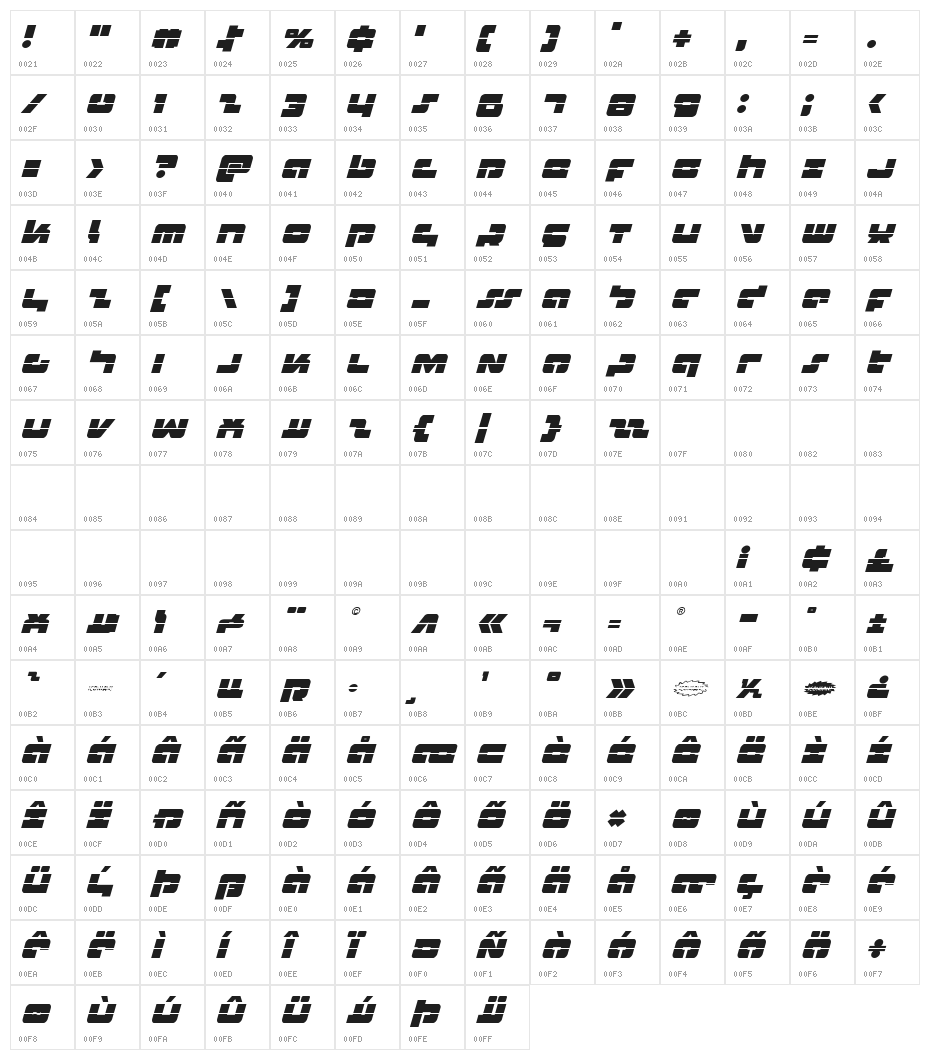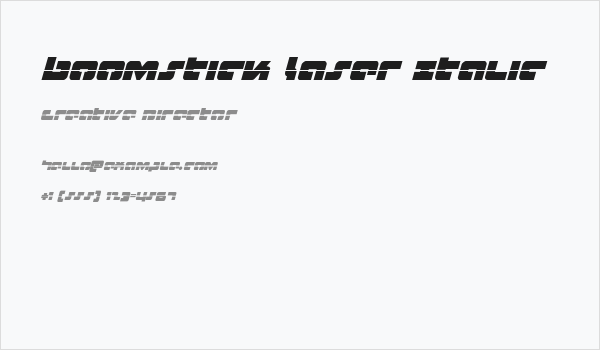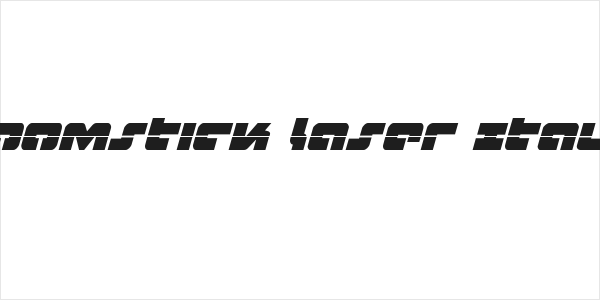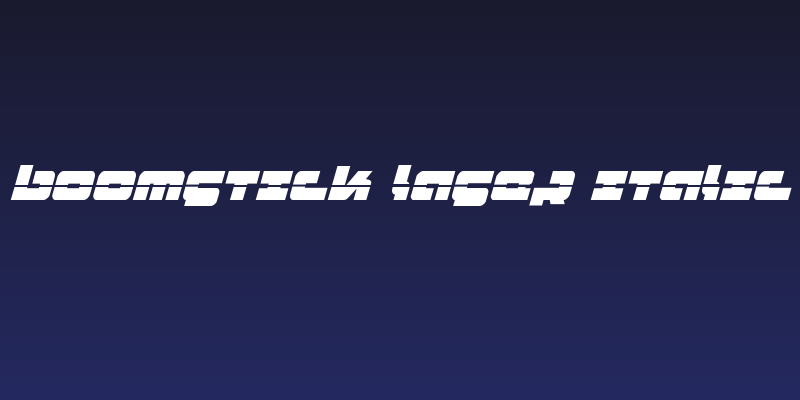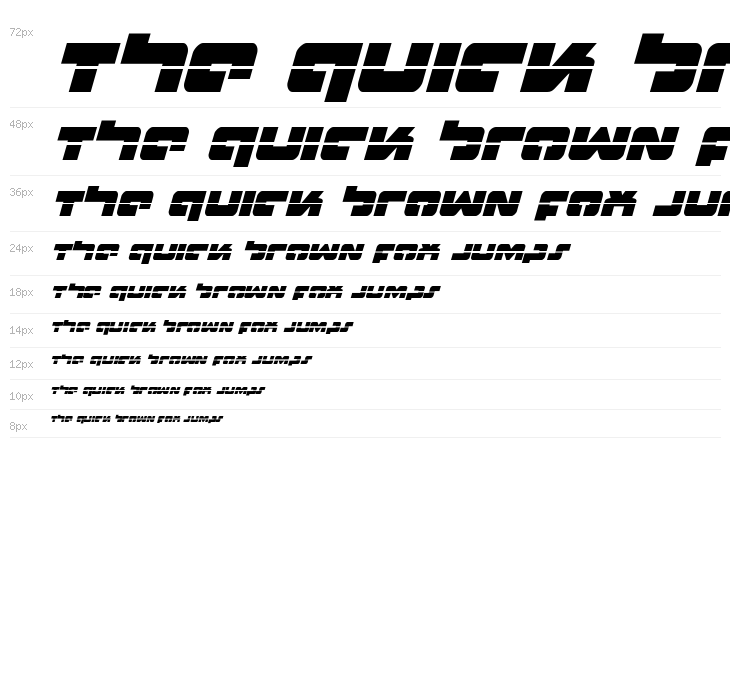
Boomstick Laser Italic Font
Boomstick Laser Italic Description
This font features a bold and futuristic design with a distinct italic slant, giving it a dynamic and energetic appearance. The characters are constructed with sharp, angular edges and a geometric style that conveys a sense of speed and modernity. The uppercase and lowercase letters maintain a consistent style, with the lowercase letters mirroring the uppercase in form and structure. Numbers and special characters are designed to match the bold, angular aesthetic, ensuring a cohesive look across all text elements. The font's unique style makes it stand out, ideal for projects that require a strong visual impact.
| Proposed Projects | Ideal for sci-fi themed designs, video game graphics, tech branding, and futuristic posters. |